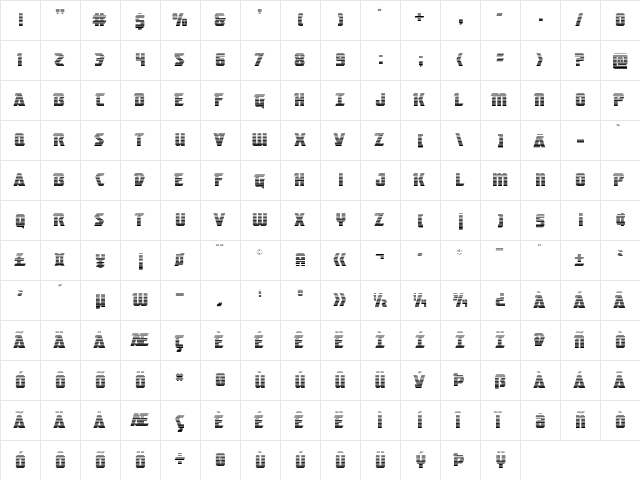
Master Breaker Gradient Regular
Design Context for Master Breaker Gradient Typeface
Master Breaker Gradient is a composed and adaptable typeface that performs quietly and consistently across a wide range of design contexts.